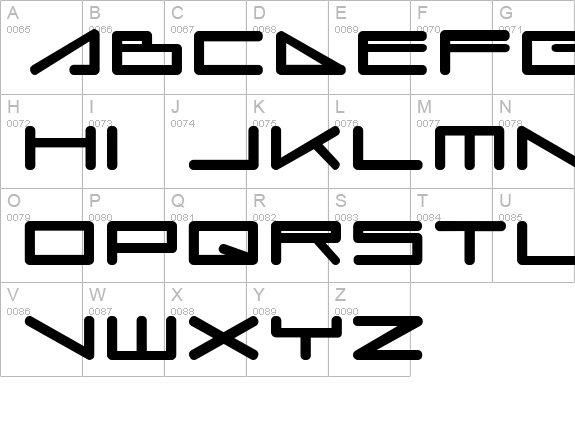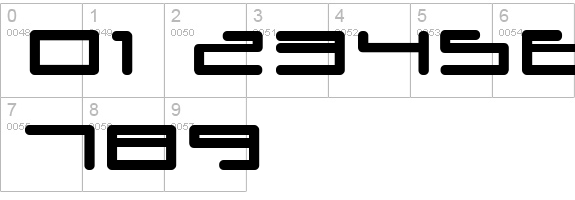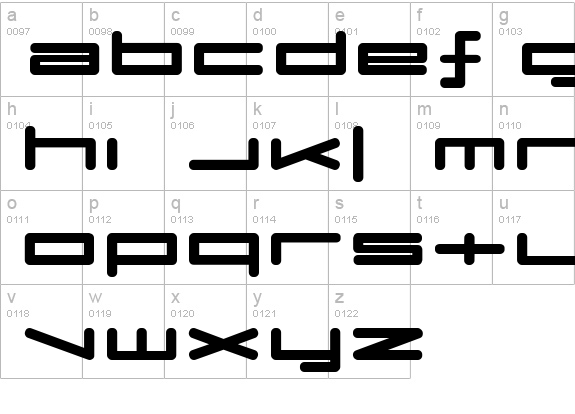
umopMedium Font Details
Introducing umopMedium, a stunning font that seamlessly merges modern sophistication with timeless elegance. This versatile typeface exudes a unique charm that captivates the eye and adds a touch of class to any design project. umopMedium is the perfect choice for those seeking a font that strikes the perfect balance between professionalism and creativity. With its sleek and stylish letterforms, umopMedium effortlessly conveys a sense of confidence and refinement. Each character is meticulously crafted, showcasing impeccable attention to detail and a commitment to excellence. Whether used for headlines, logos, branding, or body text, umopMedium elevates any composition to new heights. One of the standout features of umopMedium is its versatility. This font adapts effortlessly to various design styles, making it an ideal choice for a wide range of projects. From bold and edgy to soft and delicate, umopMedium can effortlessly transform any concept into a visual masterpiece. One of the best things about umopMedium is that it is freely available to download at FontsMarket.com. This means that anyone can easily access this extraordinary font and add it to their design arsenal without any cost. This accessibility allows designers, students, and creatives from all walks of life to experiment with umopMedium and unleash their creativity without any limitations. umopMedium's ease of use is also a standout feature. Its clean and legible design ensures effortless readability across different mediums, be it print or digital. This font is also compatible with various software applications, making it a breeze to incorporate into any design workflow. In conclusion, umopMedium is a versatile and visually striking font that effortlessly combines modern aesthetics with timeless elegance. Its impeccable design, adaptability, and ease of use make it a valuable asset for designers of all levels. And the best part? It is freely available to download at FontsMarket.com, allowing anyone to experience the beauty and sophistication of umopMedium without any barriers. So, why wait? Unlock your creative potential and elevate your designs to new heights with umopMedium.